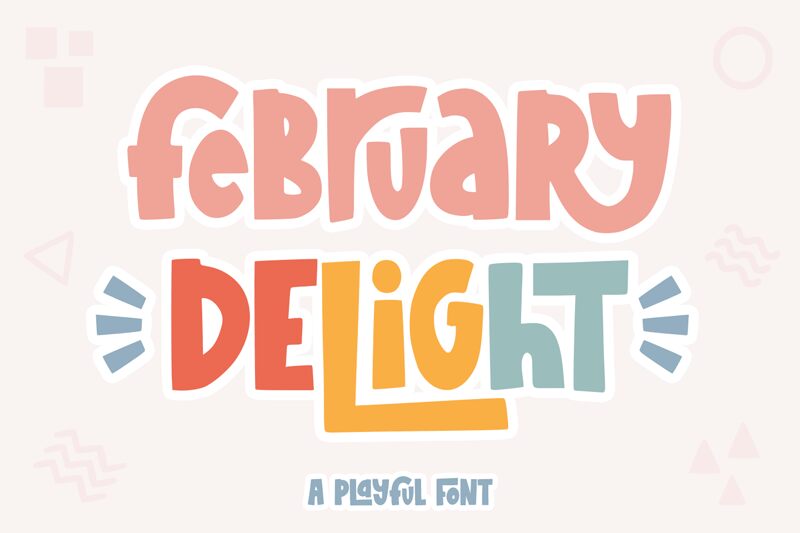
February Delight
February Delight, a delightful display font crafted by Abo Daniel Studio, exudes a captivating blend of whimsy and playfulness. With its bold, condensed strokes and cartoon-inspired aesthetic, this font invites a sense of joy and lightheartedness. The exaggerated forms and expressive letterforms captivate the eye, promising to breathe life and personality into any design.
This versatile font shines in a variety of applications, from vibrant branding and packaging to eye-catching headlines and playful social media content. Its bold, condensed nature makes it an ideal choice for attention-grabbing designs, while the cartoon-inspired style lends itself beautifully to projects targeting younger audiences or those seeking a touch of whimsy.